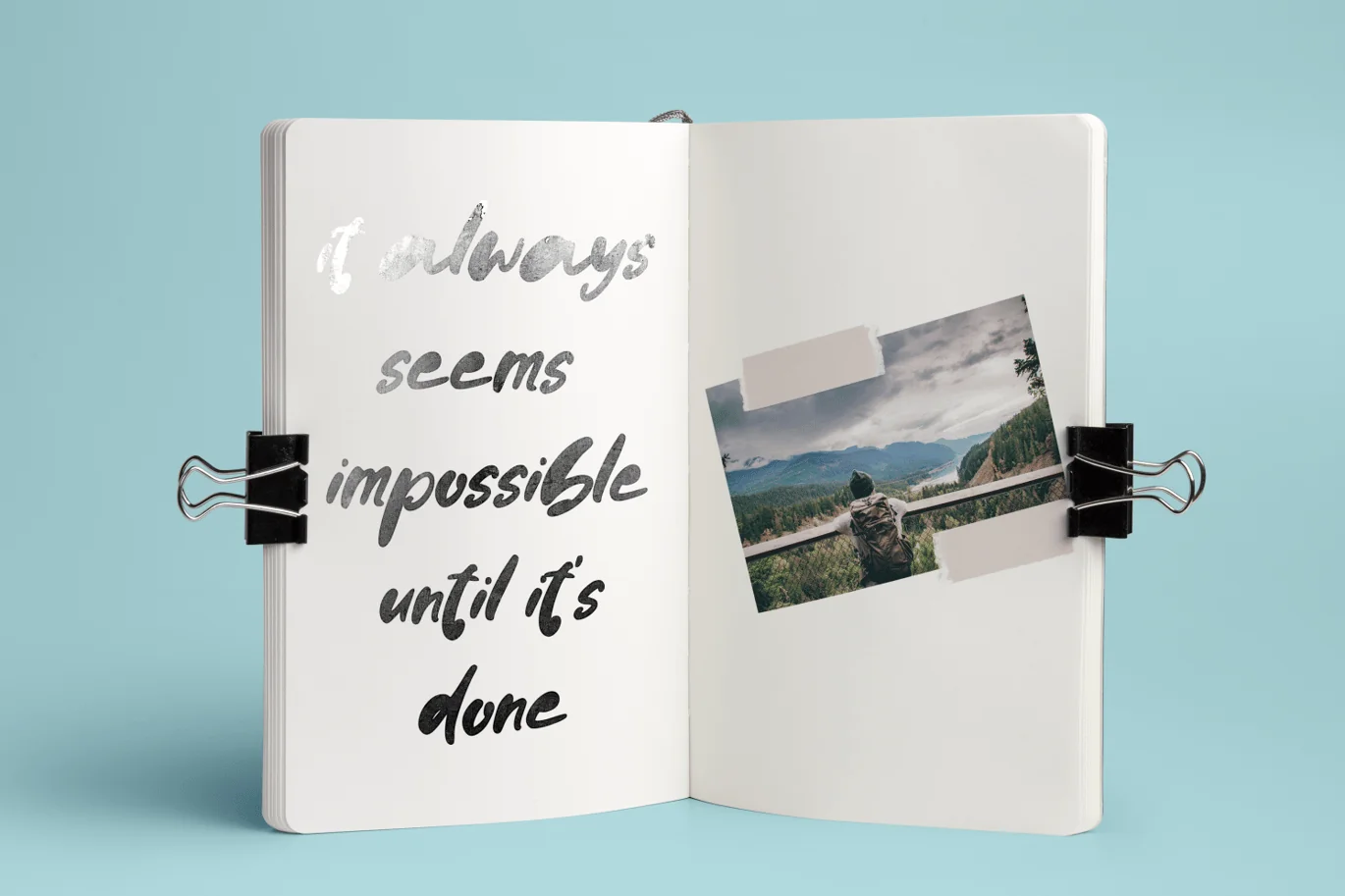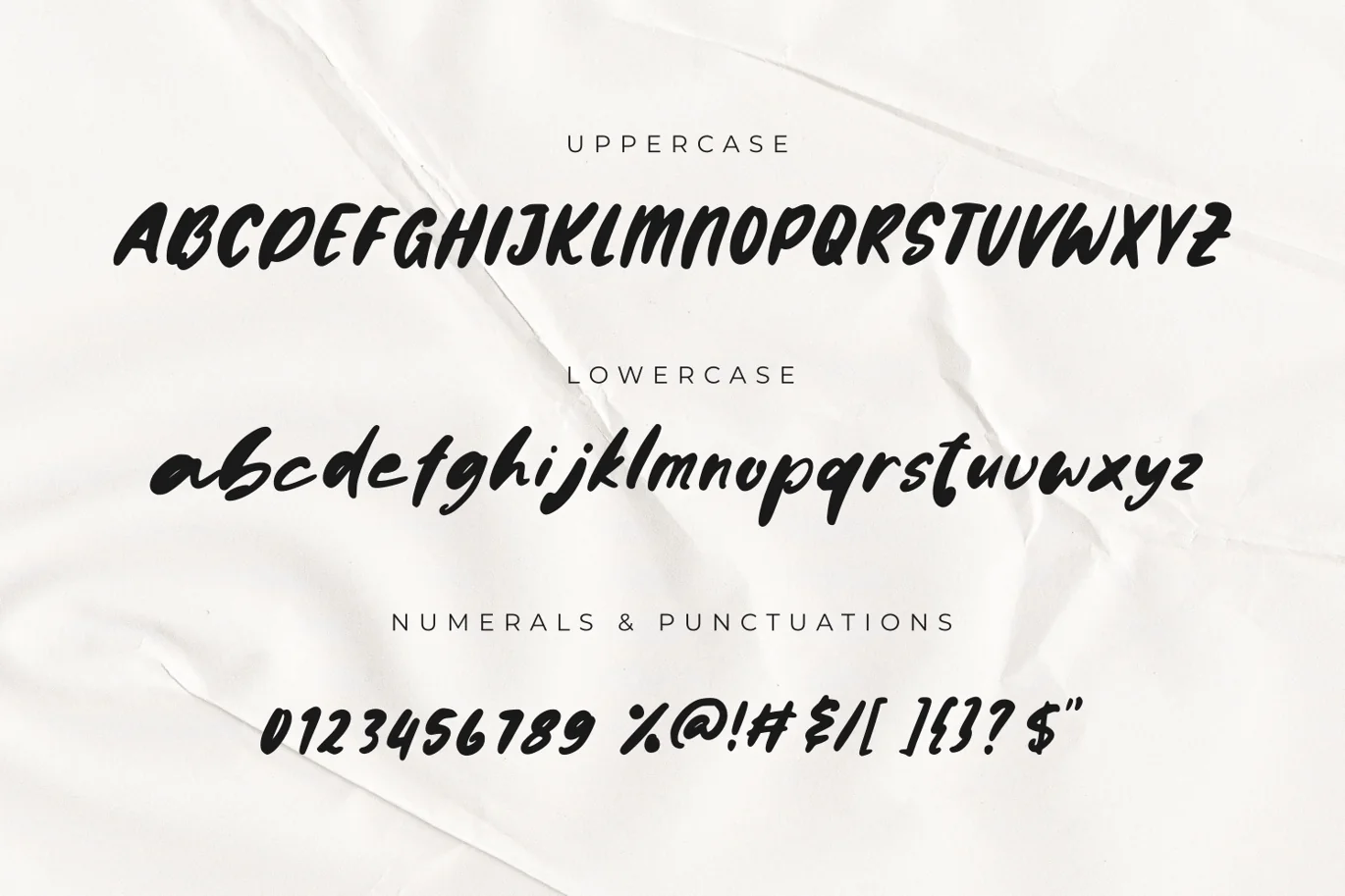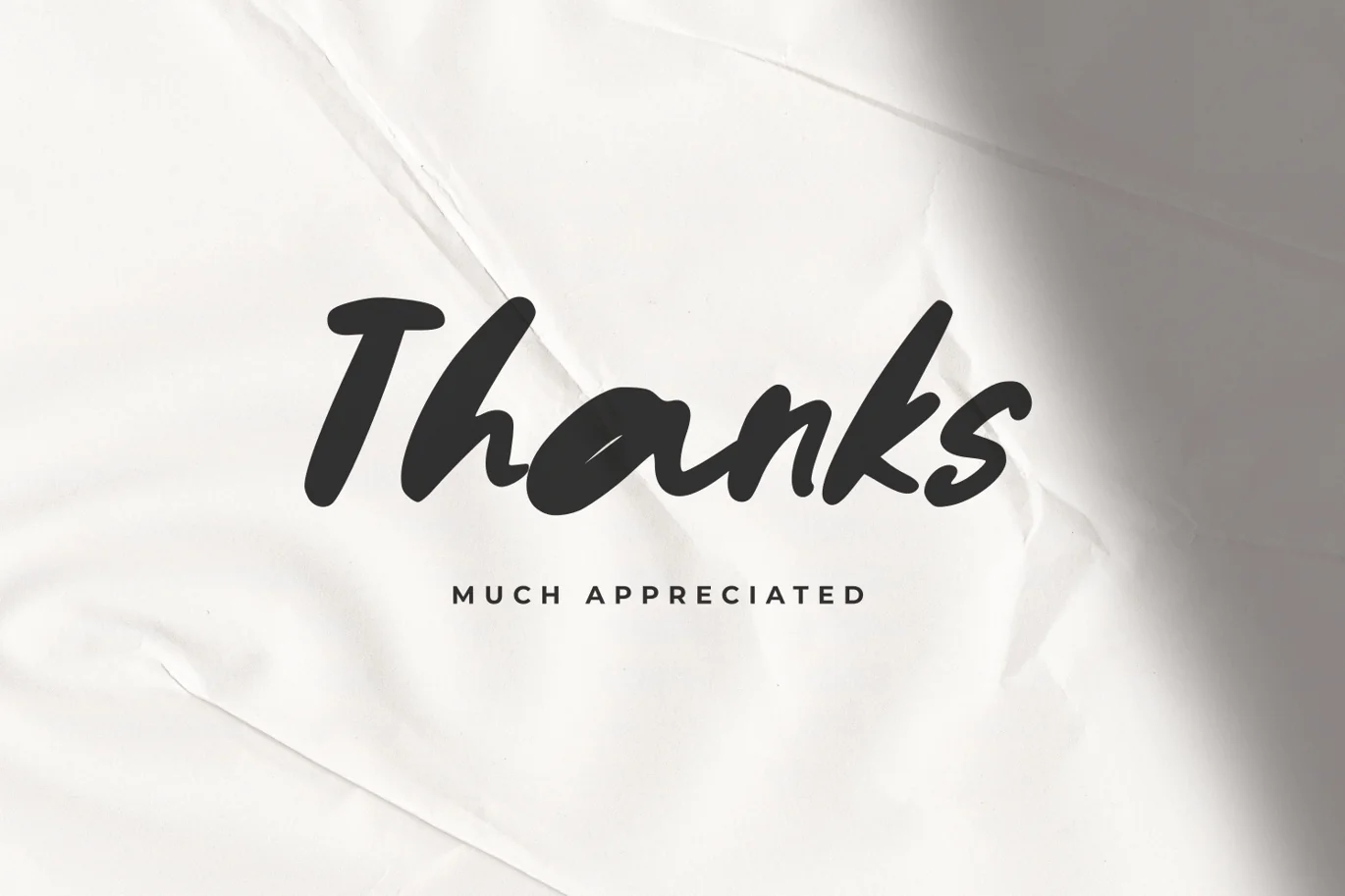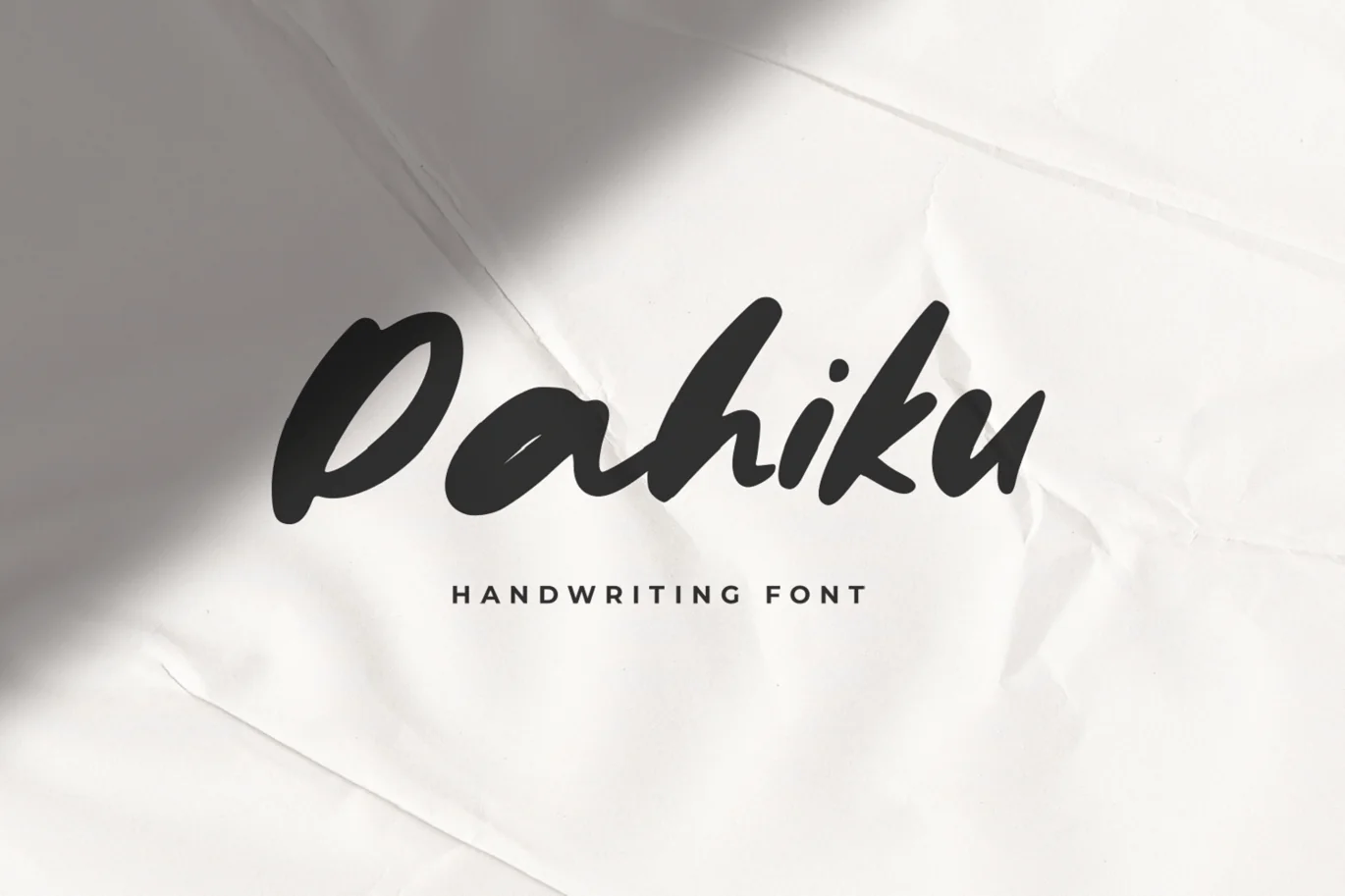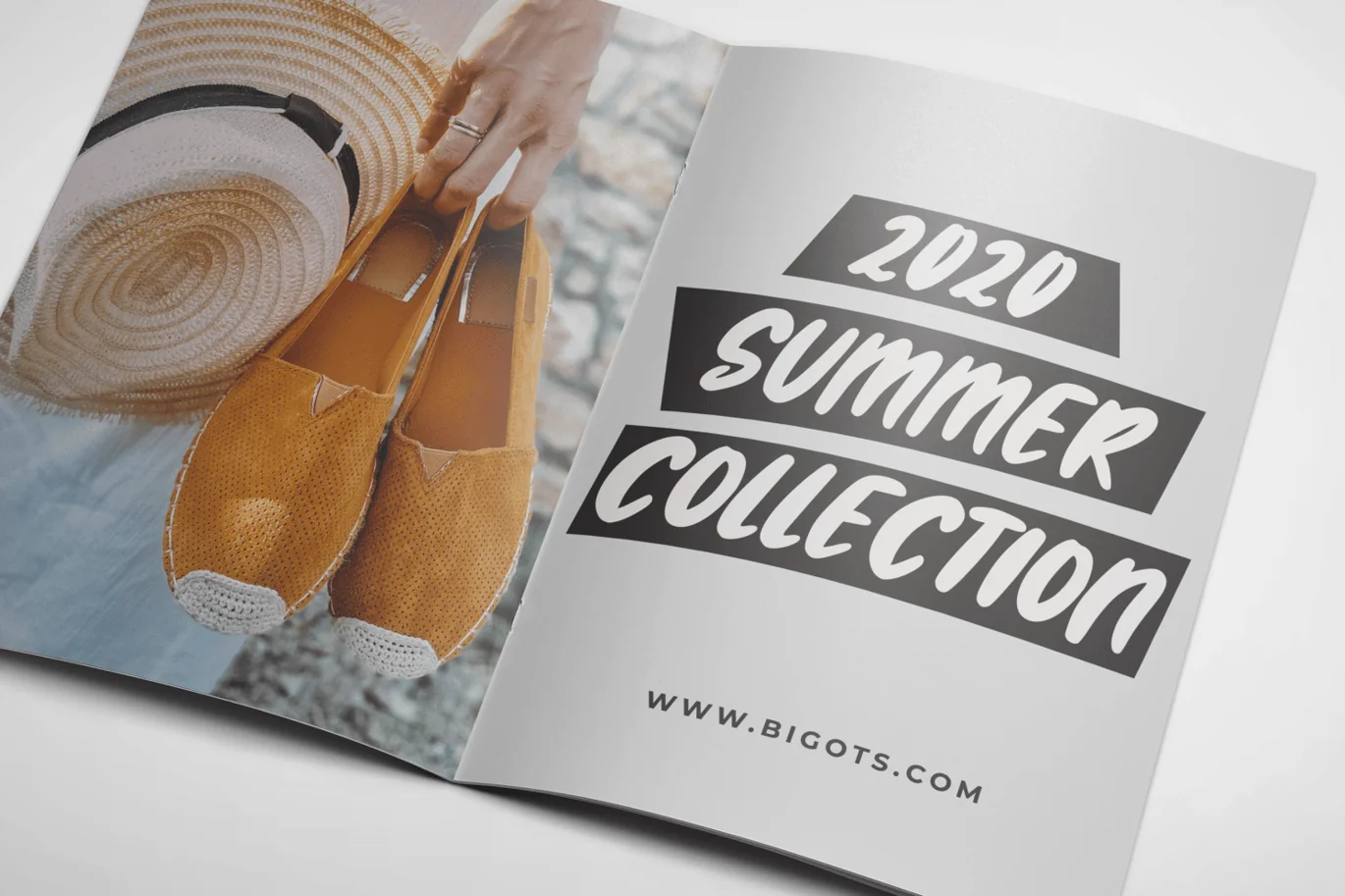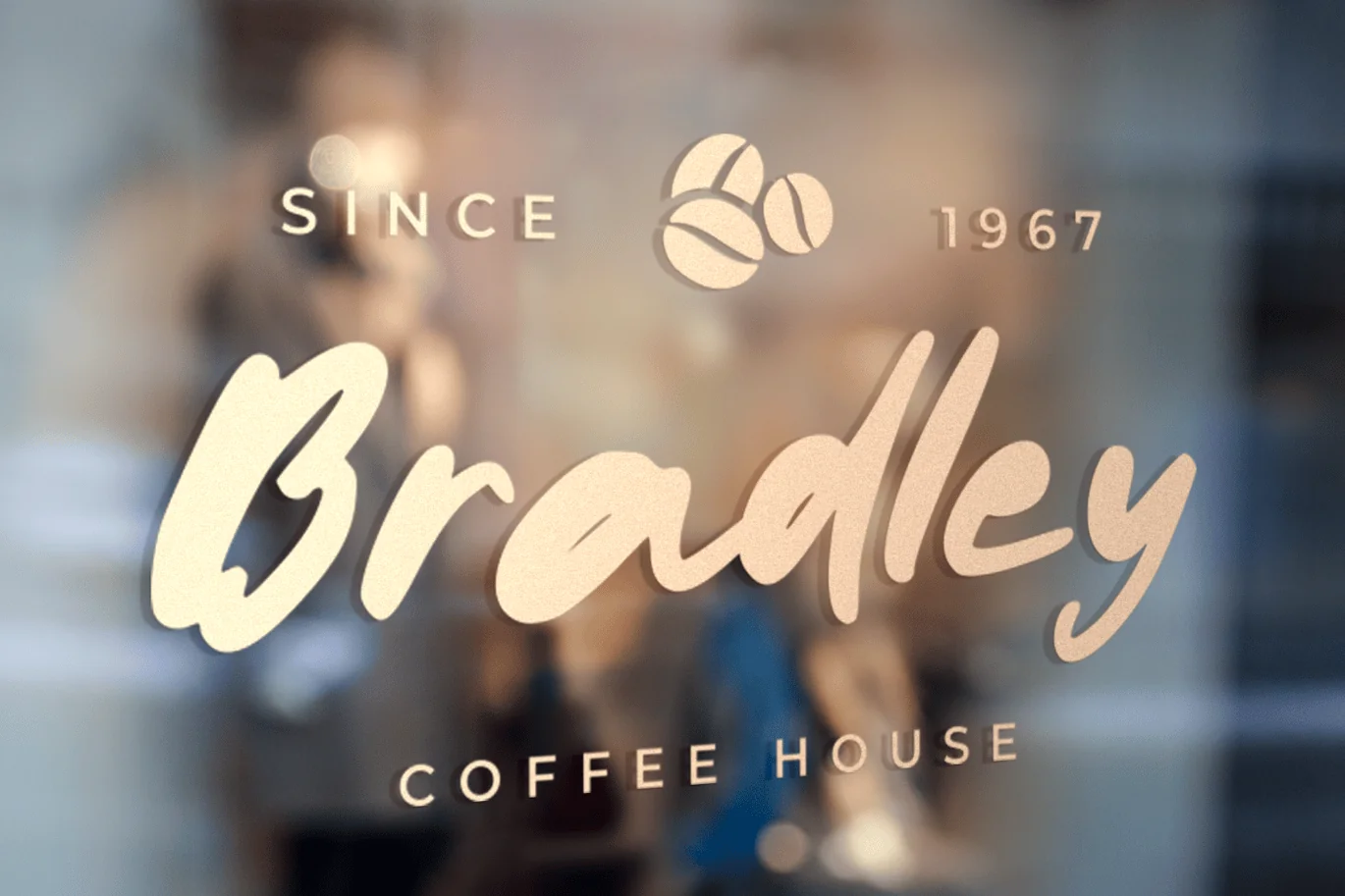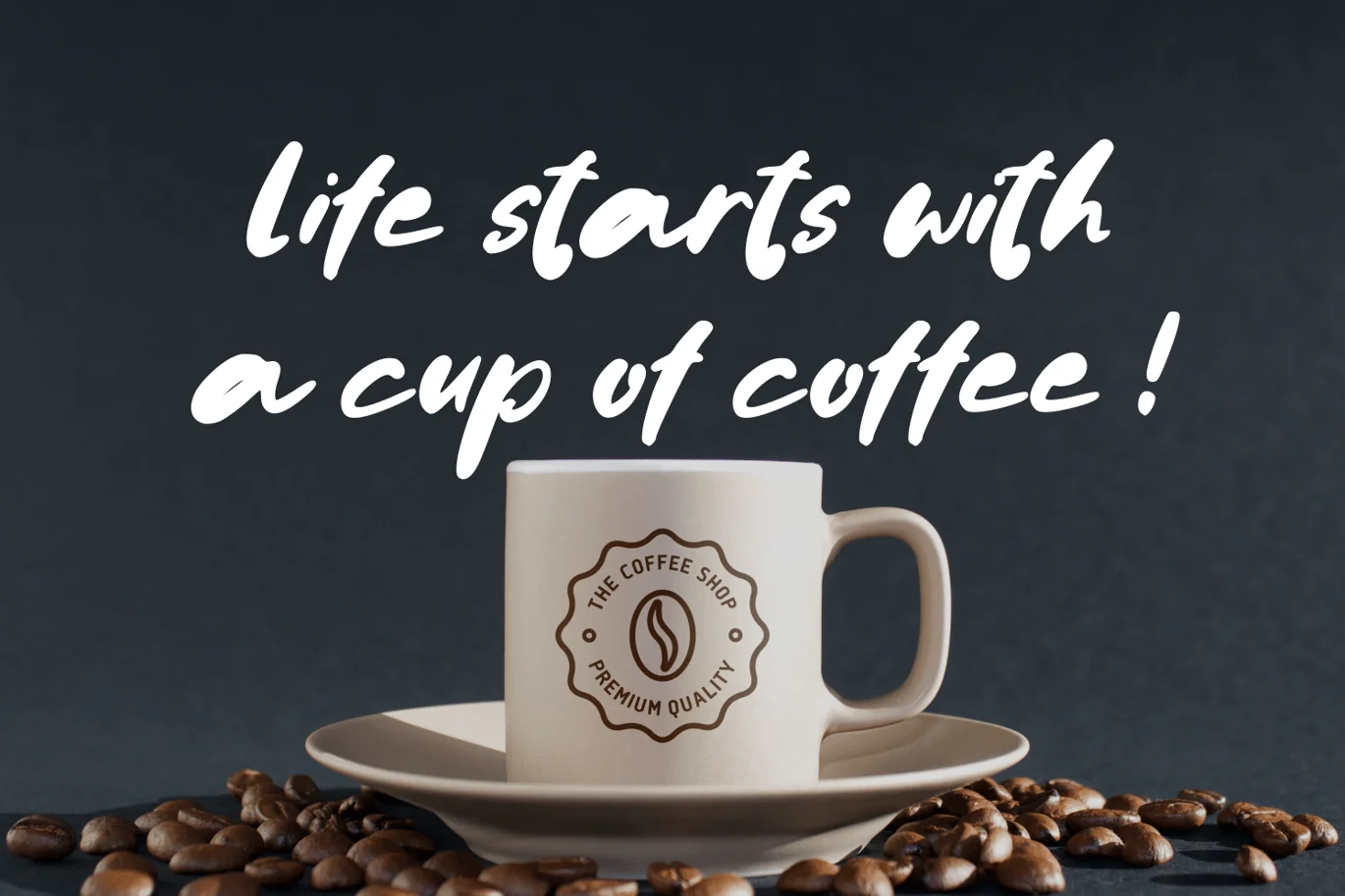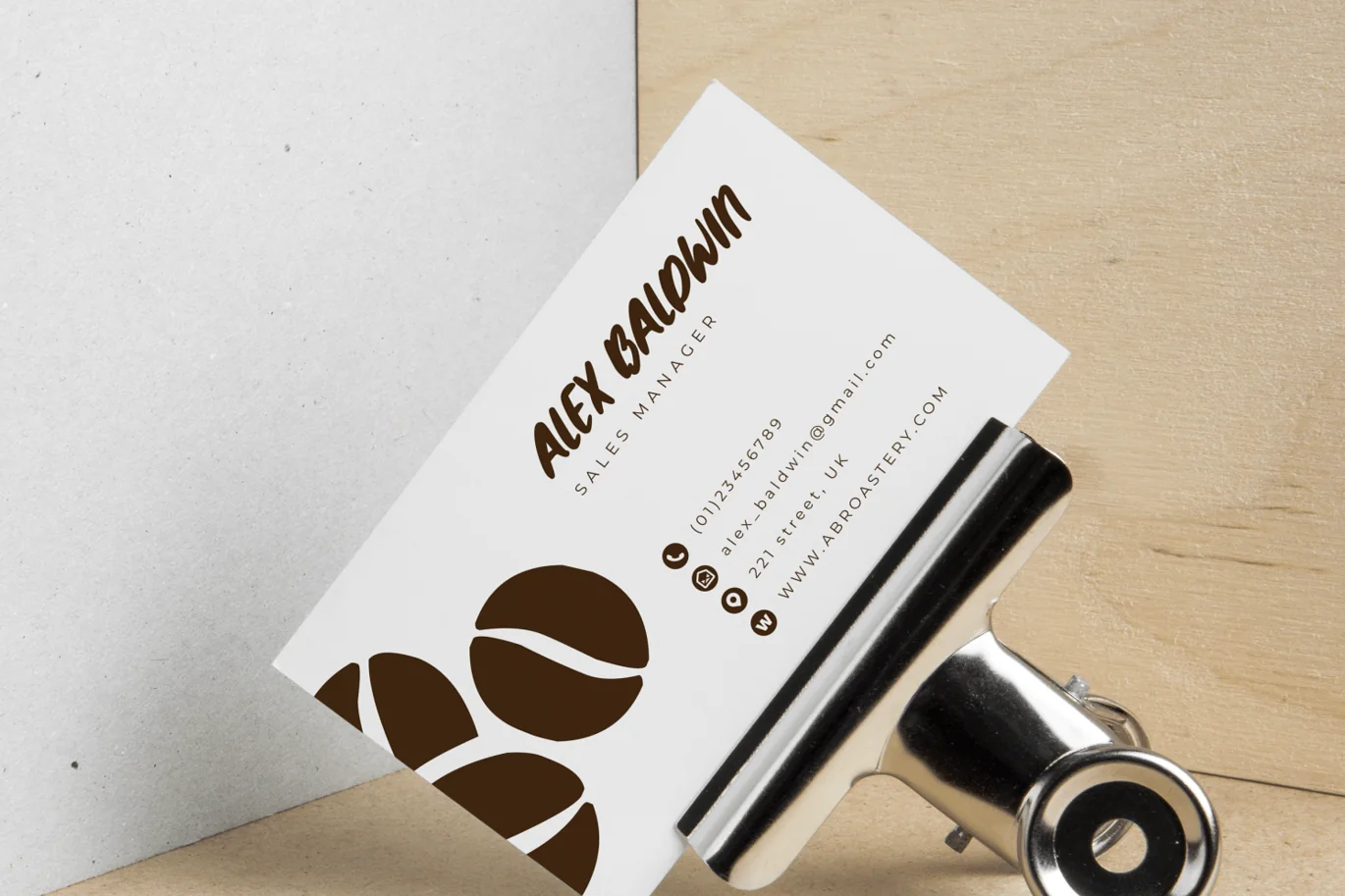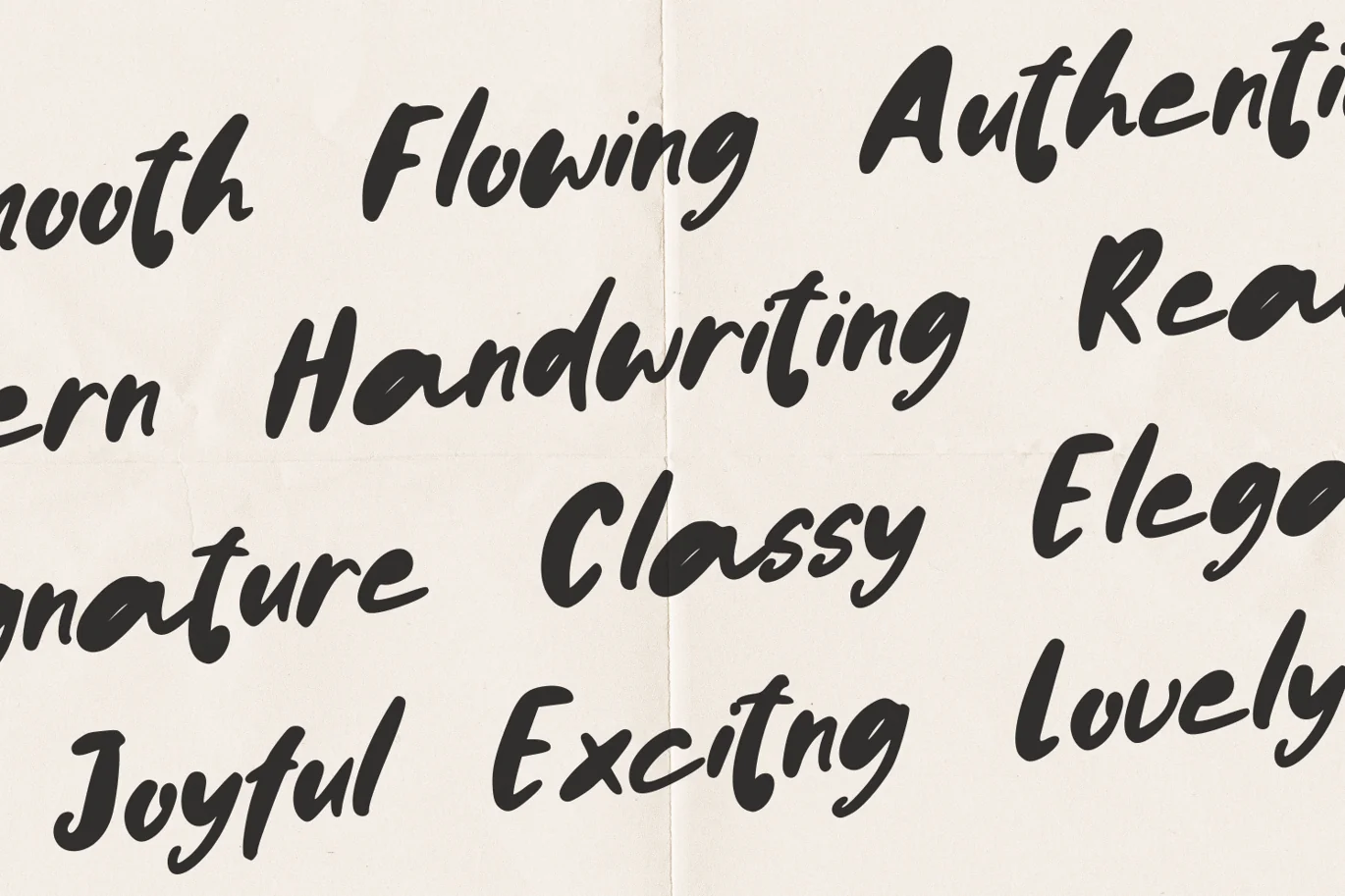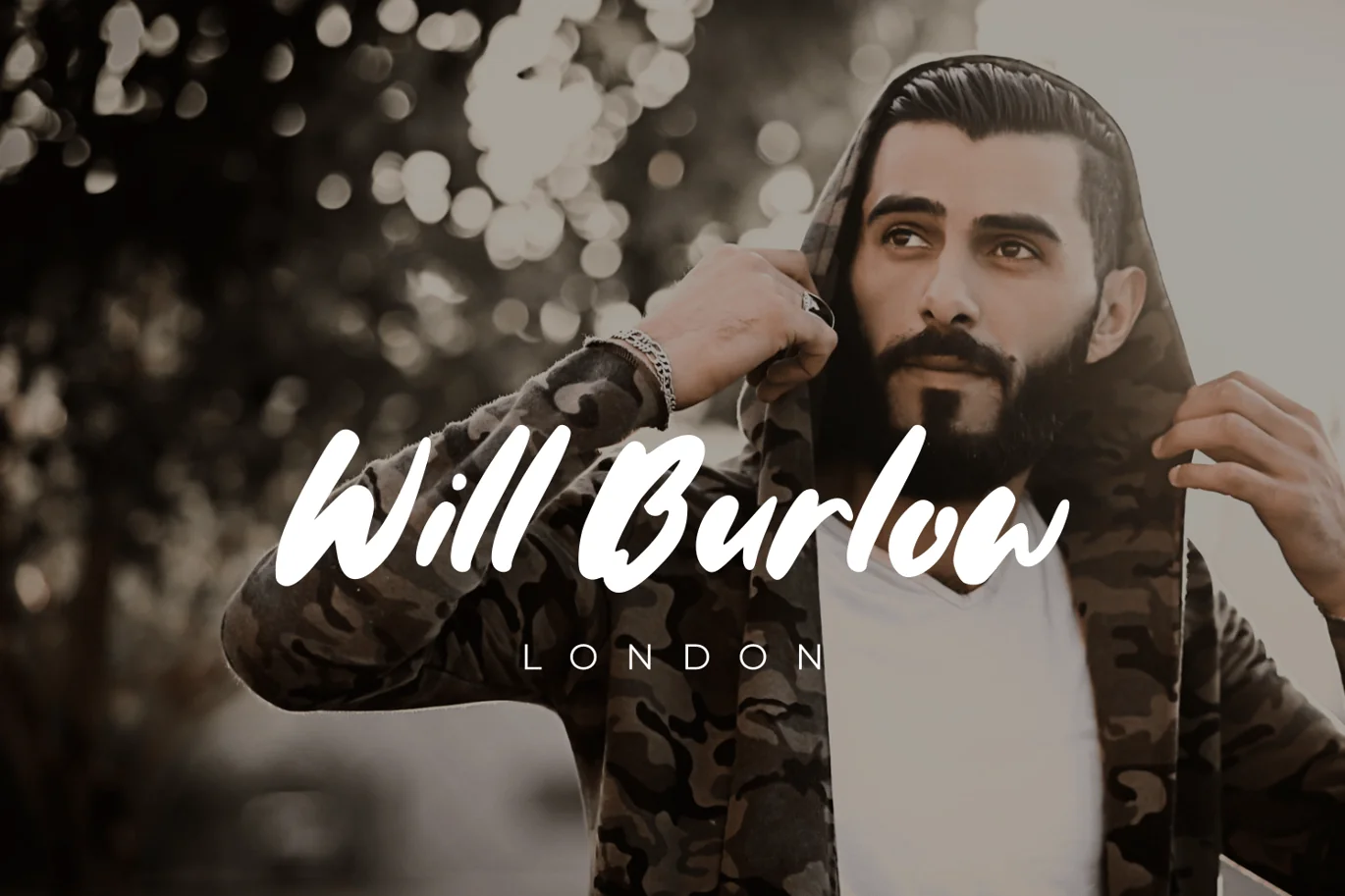
Dahiku – Handwriting Font
Dahiku – Handwriting Font, it’s perfect for logos, name card, magazine layouts, invitations, headers, or even large-scale artwork.